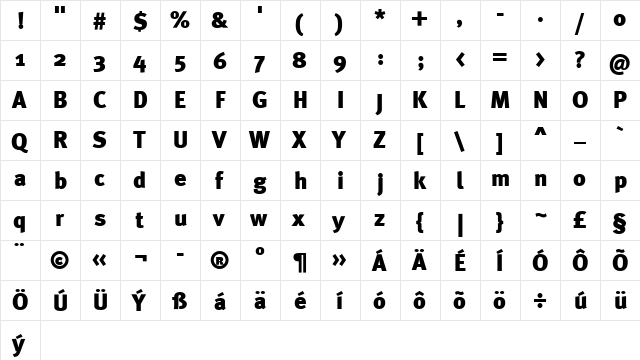
MetaBlackCE Roman
Design Context for MetaBlackCE Typeface
MetaBlackCE takes a measured approach to typography — its balanced proportions and neutral character make it a reliable workhorse for both digital and print work.